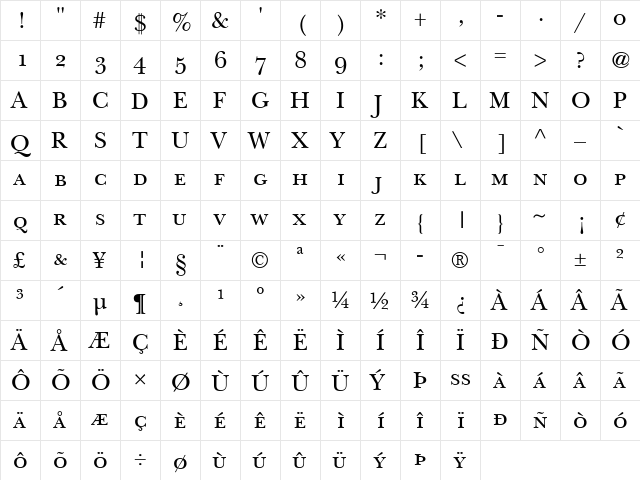
NewBaskerville SC Regular
Design Context for NewBaskerville SC Typeface
NewBaskerville SC offers clean, dependable letterforms without strong stylistic allegiance, making it a practical choice for designers who need flexibility.